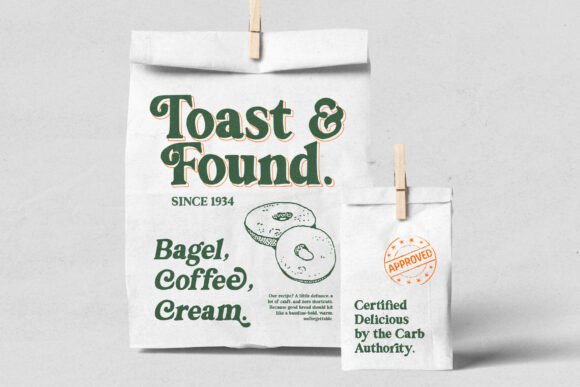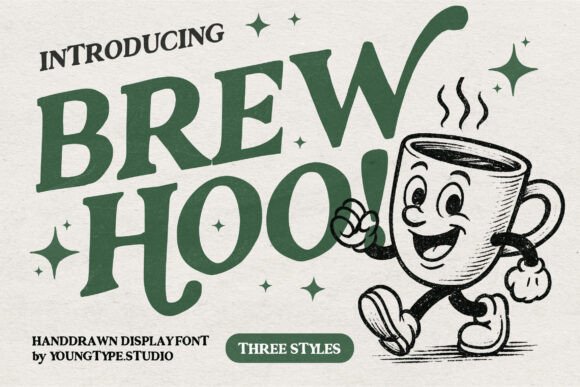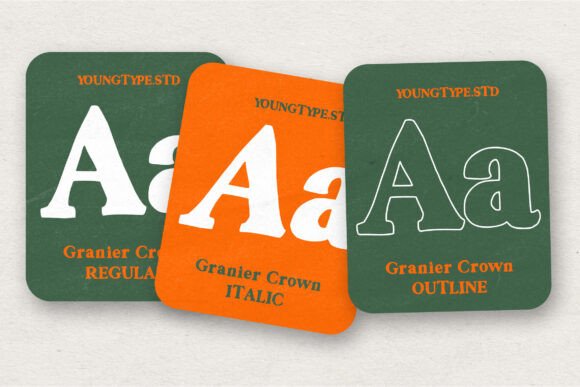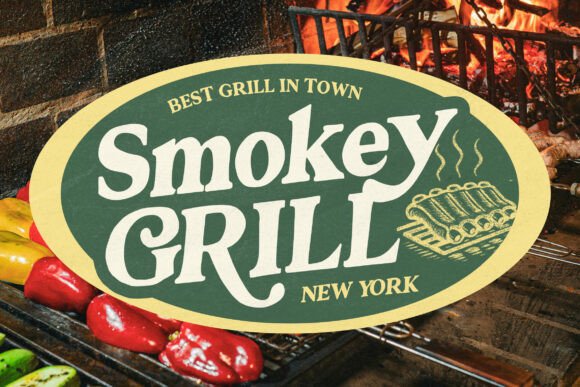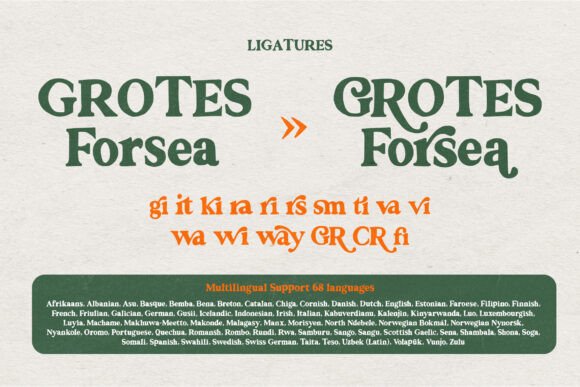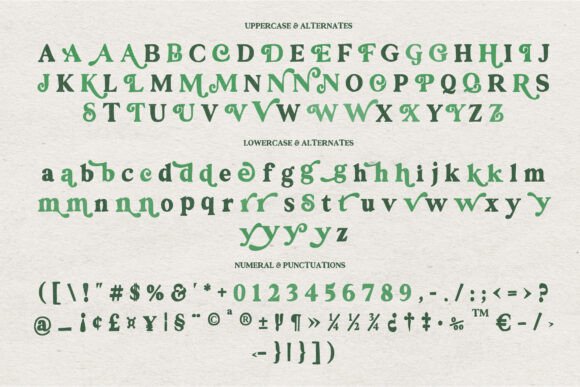
Unleash Your Creativity with the Granier Crown Font
Have you ever stared at a blank canvas, waiting for the perfect idea to strike? The moment when the words flow, and the design starts to take shape, is pure magic. It’s that spark of creativity that drives us to push boundaries and bring our visions to life. And for designers, having the right tools can make all the difference.
Enter the Granier Crown Font, a bold and expressive display font that’s about to become your new best friend. With its vintage flair and modern adaptability, this versatile typeface is perfect for branding, headlines, logos, and editorial designs that demand a distinctive voice. Whether you’re working on a packaging project, creating a poster, or designing a logo, the Granier Crown Font is sure to add that extra oomph to your work.
What sets the Granier Crown Font apart is its unique balance of playfulness and sophistication, making it an ideal choice for designers who want to stand out from the crowd. With three styles to choose from – Regular, Italic, and Outline – you’ll have endless possibilities to explore and express your creativity.
Key Features of Granier Crown Font
- Font Family: A unique, elegant serif font with a regal feel, perfect for titles and headings.
- Unique Characteristics: Features intricate details and ornaments, making it ideal for luxury and high-end designs.
Granier Crown Font Review
I’ve had the chance to work with the Granier Crown Font, and here’s my honest take.
- Unique design: The Granier Crown Font has a distinct, elegant feel to it, making it perfect for projects that need a touch of sophistication.
- High-resolution glyphs: The font’s high-resolution glyphs ensure that it looks crisp and clear on various devices, from web to print.
- Good for headings: The Granier Crown Font is particularly well-suited for headings and titles, where its ornate details can add visual interest.
- Readability issues: While the font is beautiful, it can be challenging to read, especially for long blocks of text.
- Not suitable for body text: Due to its ornate nature, the Granier Crown Font is best reserved for headings and titles, rather than body text.
- May not be accessible: The font’s unique design can make it difficult for screen readers to interpret, potentially limiting its accessibility.
The Granier Crown Font is a stunning, high-end font that’s perfect for projects where elegance and sophistication are key. However, its limitations make it unsuitable for everyday body text or projects where readability is a top priority.
Use the Granier Crown Font for titles and headings to add a touch of elegance and sophistication to your designs.
Brand logos and marketing materials
Book covers and magazine titles
Special occasion cards and gift tags
Does the Granier Crown Font support ligatures and contextual alternates?
Yes, the Granier Crown Font includes ligatures and contextual alternates, which can be accessed by enabling the “Ligatures” and “Contextual Alternates” features in your design software. This will allow you to take full advantage of the font’s advanced typographic features.